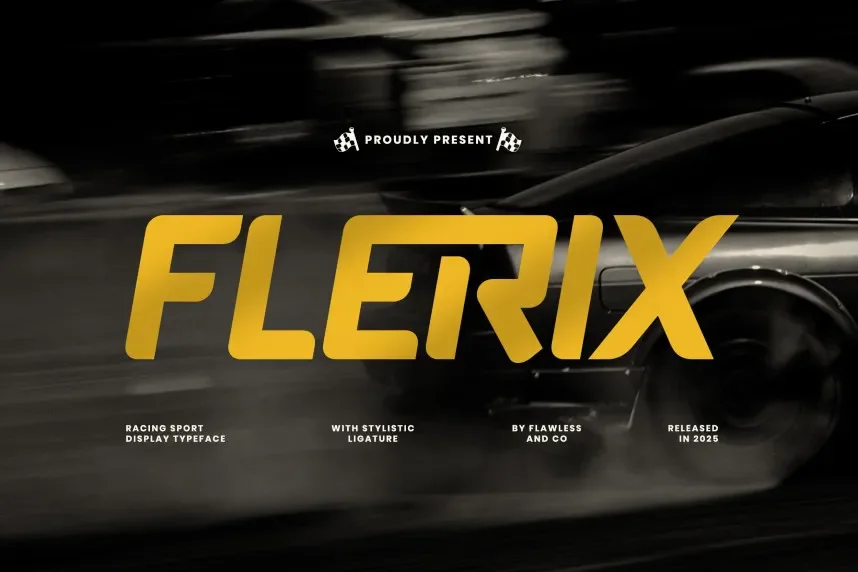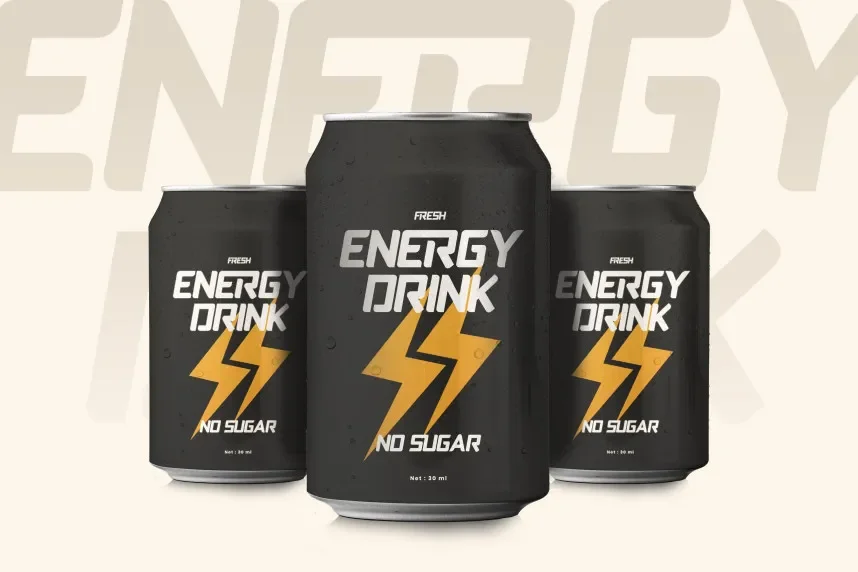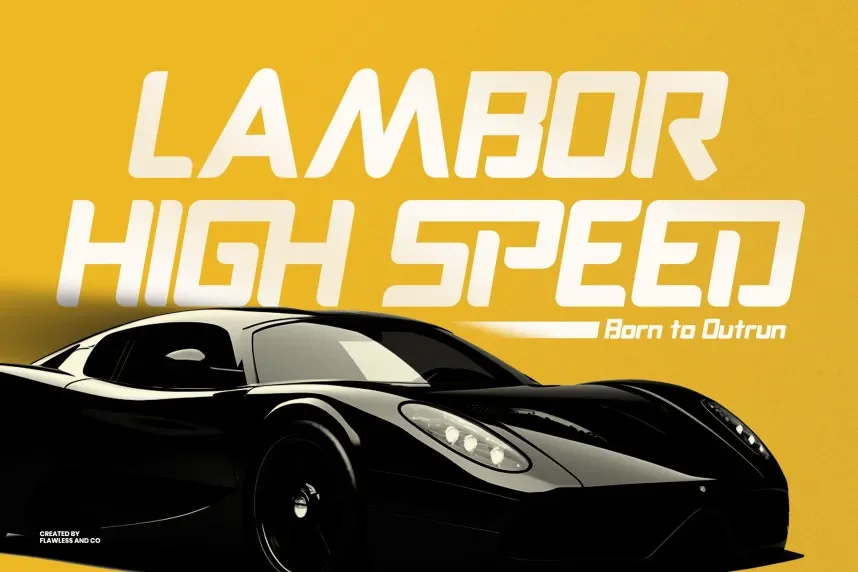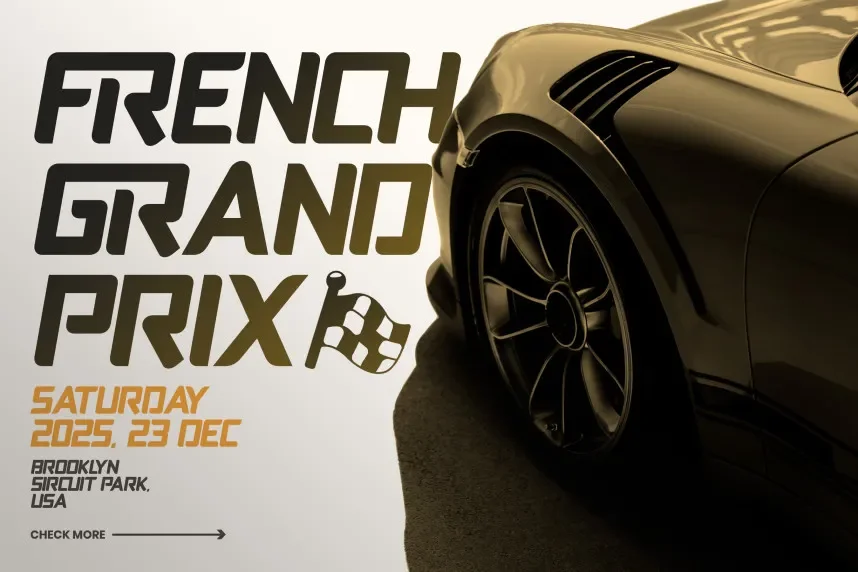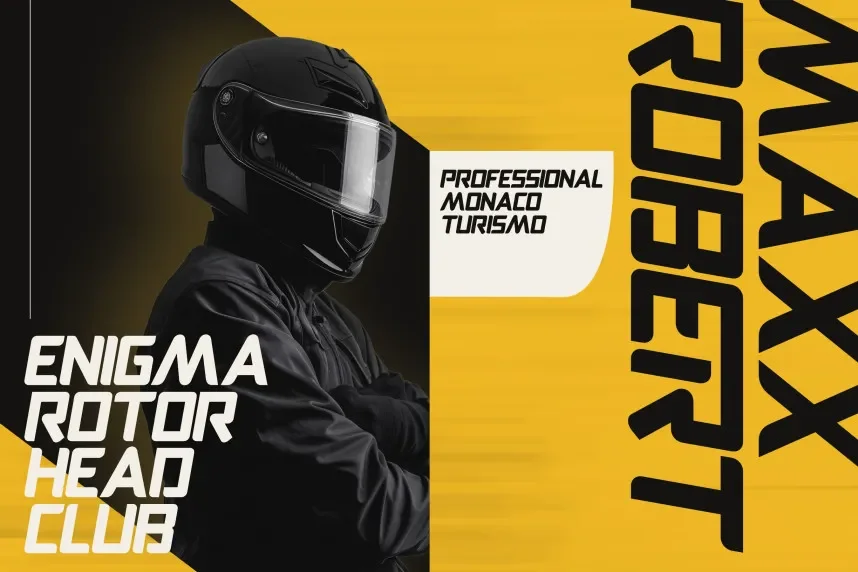
Flerix Font supports designers working on bold layouts that need strong letter shapes. Many display fonts lack consistency across characters.
Flerix is a display font with structured strokes, defined curves, and consistent proportions. The letterforms focus on visual rhythm rather than long text readability.